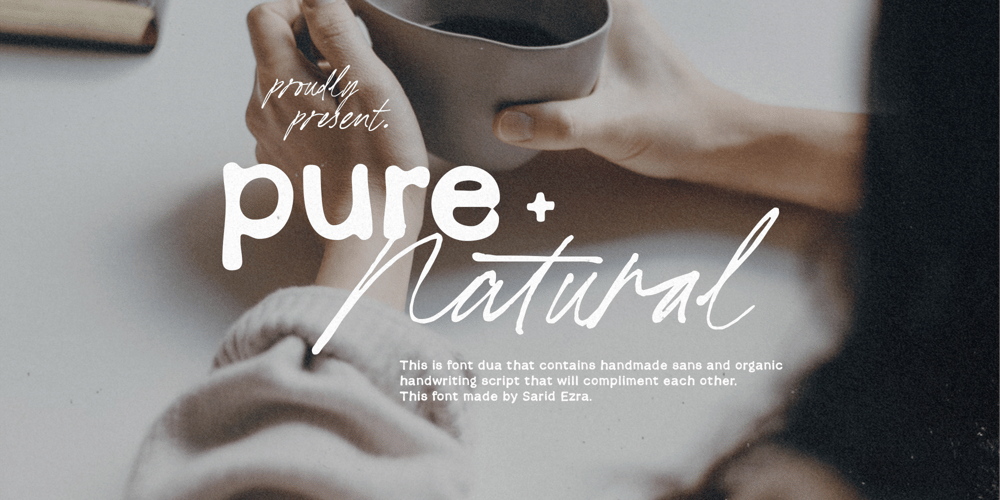
Pure Nature
Pure Nature font
Pure Nature Font Family was designed by Sarid Ezra and published by Sarid Ezra. Pure Nature contains 2 styles and family package options. Pure Nature is a font duo that combines a handwritten script with ligatures and an organic sans serif offers a perfect blend of natural and modernity, providing both decorative flair and readability. You can use this font for any purposes especially project that need the human touch and handmade looks. This font duo also support multi language.